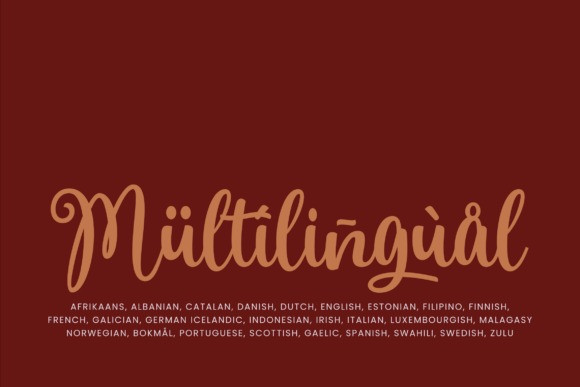
Heartsmore Script Font
Heartsmore Script Font is a charming and elegant script font designed to bring a romantic and graceful touch to your creative projects. With smooth curves, stylish swashes, and a handcrafted feel, this font is perfect for adding warmth and personality to any design. Whether you’re crafting a wedding invitation, building a feminine brand, or designing heartfelt quotes, Heartsmore is your go-to font.